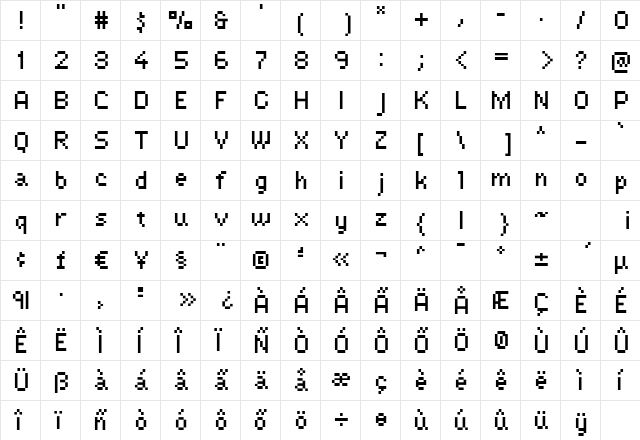
Lexipa Regular
Design Context for Lexipa Typeface
Lexipa is a composed and adaptable typeface that performs quietly and consistently across a wide range of design contexts.